✒️ 7 Script Font Bundles That Will Elevate Your Creative Projects
When it comes to creating stunning designs that leave a lasting impression, the choice of font plays a pivotal role. Script fonts, with their flowing lines and elegant curves, are particularly powerful for projects that demand sophistication, romance, or artistic flair.
Today, we’ll explore 7 of the best script font bundles from PutraCetol Studio — collections that offer incredible variety, style, and versatility for creatives. Whether you’re designing a wedding invitation, branding a boutique, or creating social media graphics, these font bundles are essential tools in your design arsenal.
🖋️ Why Choose Script Font Bundles?
Script font bundles offer tremendous advantages:
- Versatility: A wide range of styles — from casual handwritten scripts to luxurious calligraphy.
- Consistency: Perfect for building cohesive design projects across different platforms.
With a font bundle, you’re equipped to tackle any creative brief with confidence and style.
🎨 Top 7 Script Font Bundles You Should Explore
1. Stylish Modern Script Font Bundle
This collection features a stunning variety of modern scripts with a sleek, chic vibe. Perfect for lifestyle branding, fashion lookbooks, and stylish logo designs.
Highlights:
- Clean, flowing strokes
- Perfect balance between elegance and readability
- Versatile enough for both bold headlines and delicate subtexts
Best for: Fashion branding, editorial layouts, social media graphics.
2. Romantic Love Font Bundles
Fall in love with typography all over again. This bundle is filled with soft, delicate fonts that scream romance — ideal for wedding invitations, Valentine’s promos, or love-themed projects.
Highlights:
- Graceful calligraphy and romantic swashes
- Perfect pairings for love quotes and elegant branding
Best for: Wedding stationery, romantic greeting cards, bridal boutiques.
3. Beauty Script Font Bundles
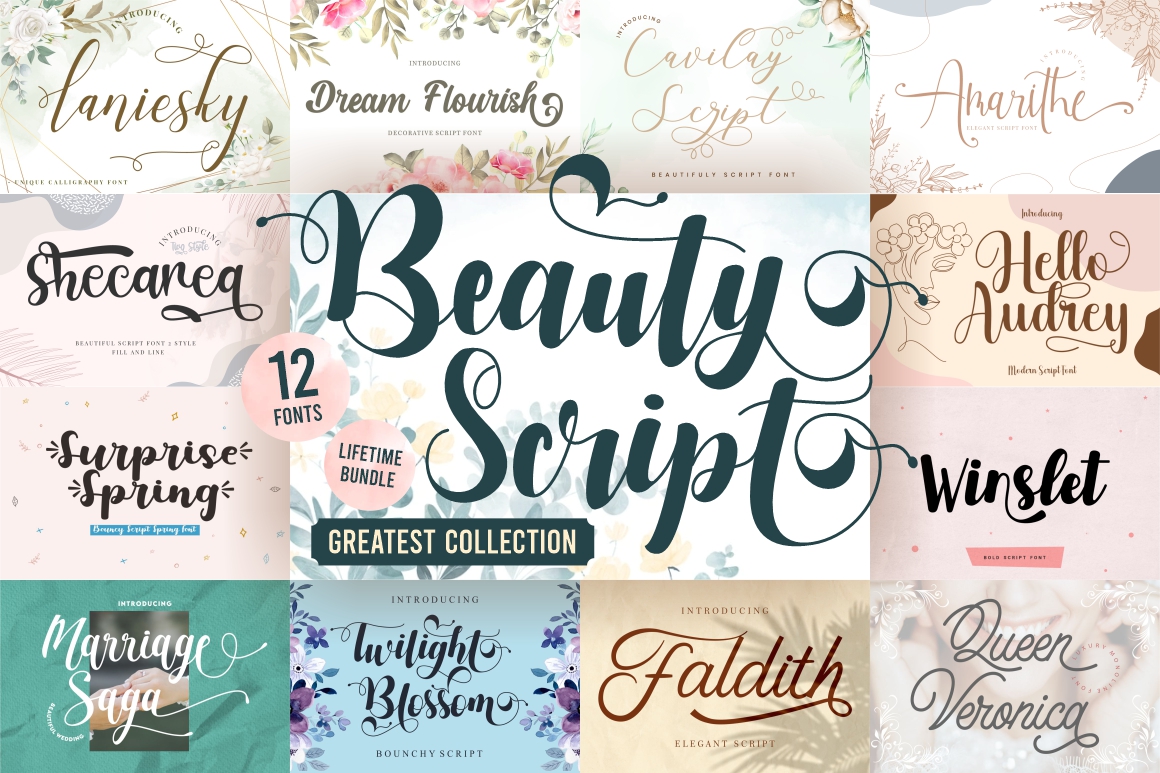
When beauty is the message, these fonts deliver. This collection offers a variety of elegant, feminine fonts that exude sophistication and charm.
Highlights:
- Polished brush strokes
- Ideal for beauty and lifestyle industries
- Well-suited for luxury packaging
Best for: Skincare branding, luxury packaging, beauty bloggers.
4. Signature Brush Font Bundle
Nothing captures personality quite like a signature-style font. This bundle gives you the feel of authentic brush pen writing — casual yet professional.
Highlights:
- Natural, flowing letterforms
- Great for personal brands and creative projects
- Organic brush textures
Best for: Personal branding, signature logos, artisan products.
5. Calligraphy and Display Script Bundle
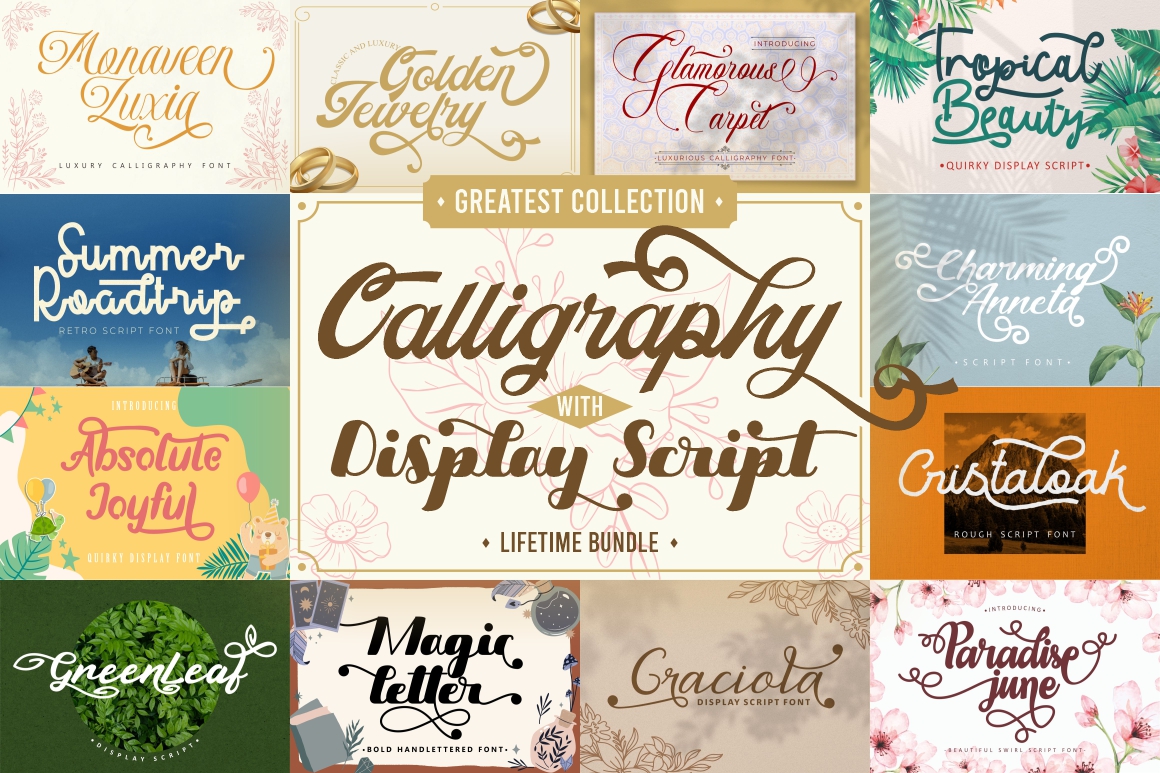
This is the bundle for those who want the best of both worlds: ornate calligraphy and attention-grabbing display scripts. Great for projects that need a strong visual impact.
Highlights:
- Elegant and dramatic letterforms
- Perfect for big titles and standout logos
Best for: Event posters, magazine covers, bold branding projects.
6. Romantic Wedding Font Bundles
This font bundle is every wedding designer’s dream. Romantic, timeless, and delicate, these fonts are crafted to add elegance to wedding invites, save-the-dates, and event signage.
Highlights:
- Soft, flowing scripts with plenty of ligatures
- Customizable to match various wedding themes
Best for: Wedding invites, event branding, bridal shower stationery.
7. Beautiful Script Font Bundle
A complete package of modern script fonts that offer both classic and contemporary aesthetics. Ideal for those who want maximum flexibility in one affordable bundle.
Highlights:
- Versatile for branding, marketing, and print materials
- Multiple font styles from formal calligraphy to casual handwritten scripts
Best for: Branding agencies, freelancers, online stores.
🧠 How to Choose the Perfect Script Font Bundle
Here are a few tips:
- Project Type: Choose softer, more romantic fonts for weddings; bold scripts for branding.
- Audience: Match the font’s mood to your target demographic.
- Application: Ensure the font scales well across print, web, and mobile formats.
- Personality: Your font should echo the feeling you want your design to evoke — whether it’s love, elegance, energy, or sophistication.
✨ Pro Tip: Pair Scripts Carefully
While script fonts are beautiful, pairing them wisely with simpler sans-serifs or clean serif fonts creates visual balance and improves readability.
🎯 Conclusion: Elevate Your Design with These Script Bundles
In 2025, where aesthetics drive digital and print engagement, having a rich library of script fonts can set your work apart. These 7 font bundles from PutraCetol offer designers, marketers, and entrepreneurs endless creative potential — whether you’re crafting romantic wedding invites or building a luxury brand.
Choose your bundle, let your creativity flow, and watch your designs capture hearts at first glance.